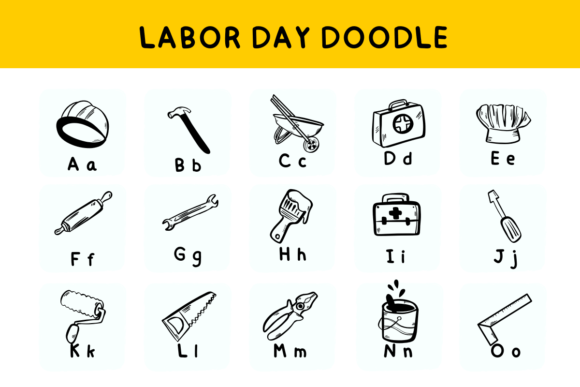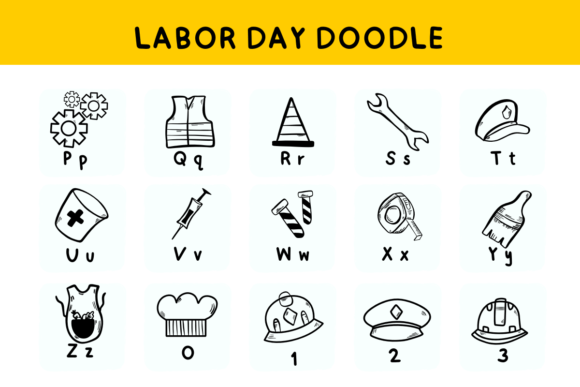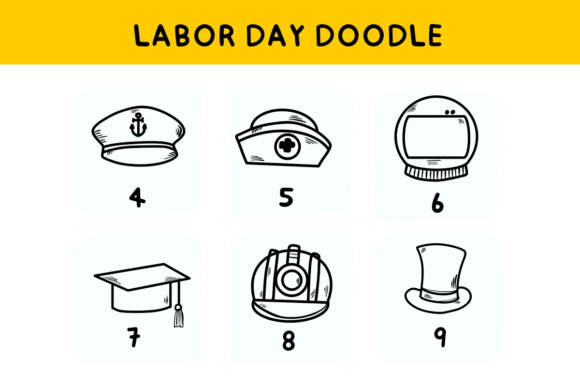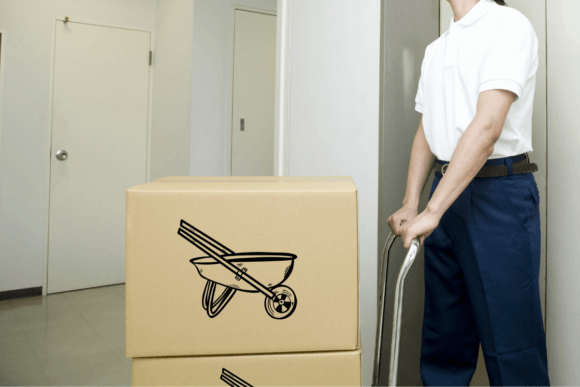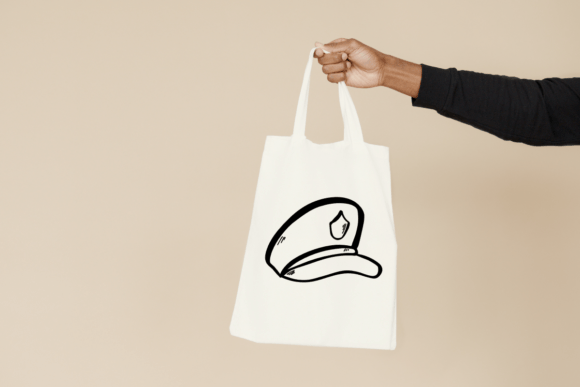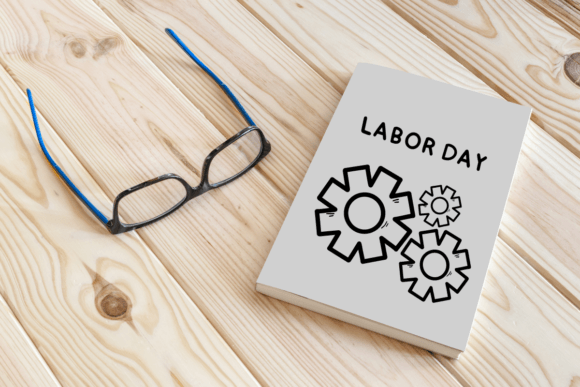
Introduction to Labor Day Doodle Font
Labor Day Doodle is a fun dingbat font with a unique theme.
This font can enhance your creative projects such as wedding invitations, DIY, crafts, decorations, logos, and many other creative ideas .